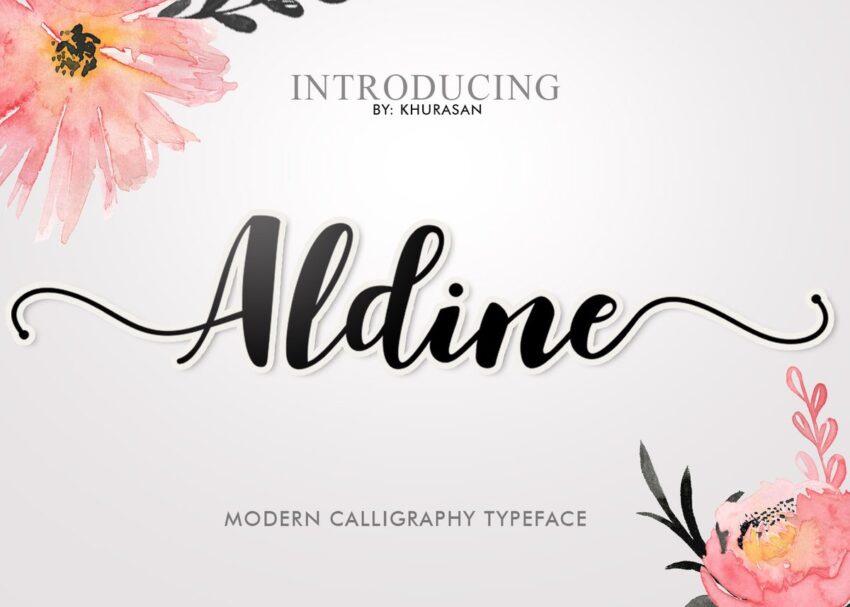
Introduction to Aldine Font
Aldine Script is a fresh modern font.
👤 Author Khurasan
This font is completely handmade and perfect for wedding invites, cards & signs and other projects that need a personal touch .
Key Features of Aldine Font
Why Choose Aldine Font?
Aldine Font offers exceptional quality and versatility, making it a valuable addition to your design toolkit. Whether you’re creating for personal projects or commercial use, Aldine Font delivers professional results.